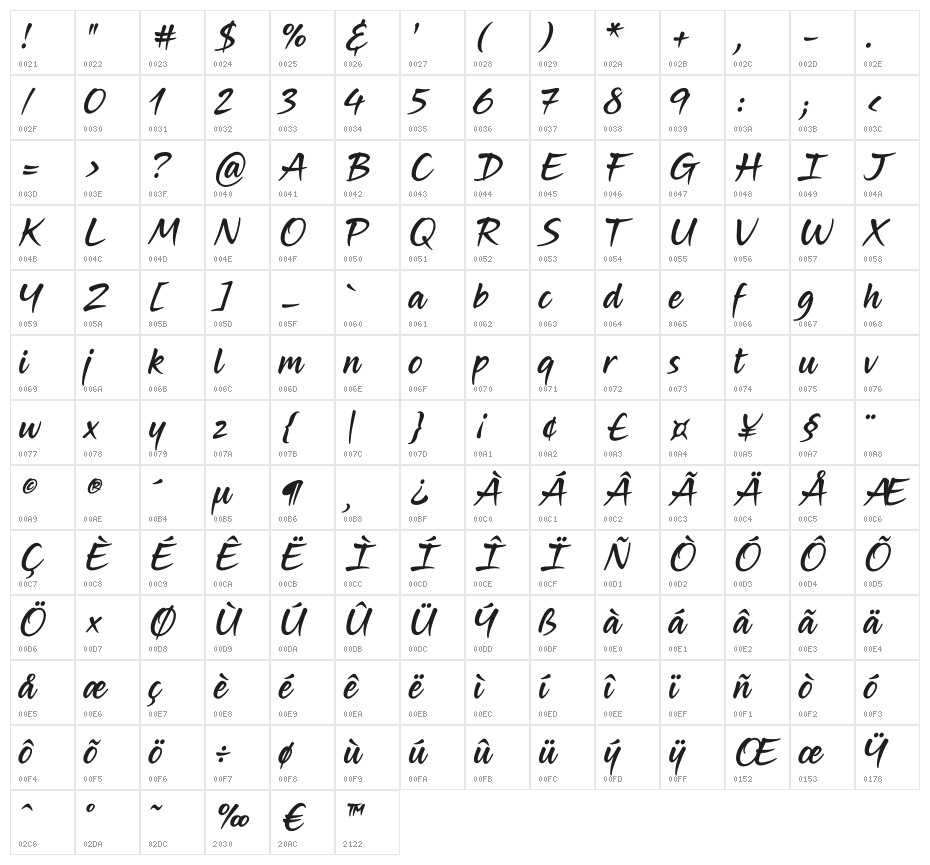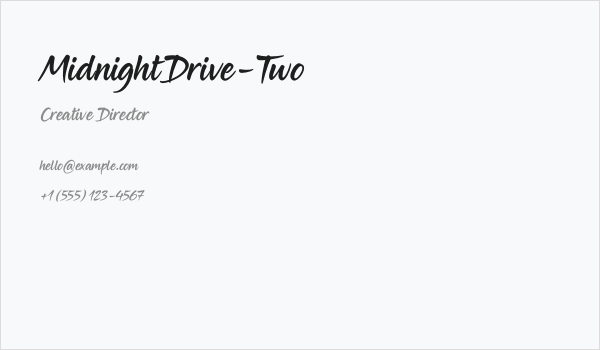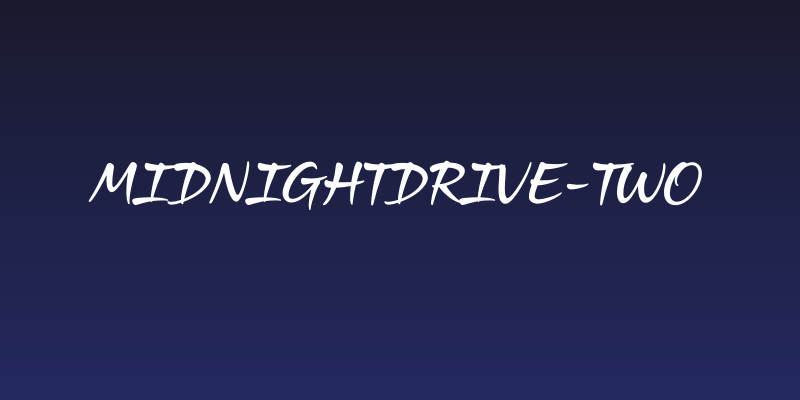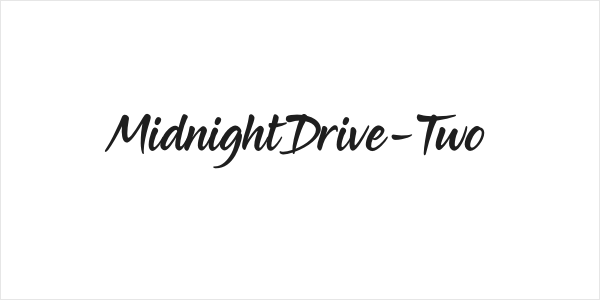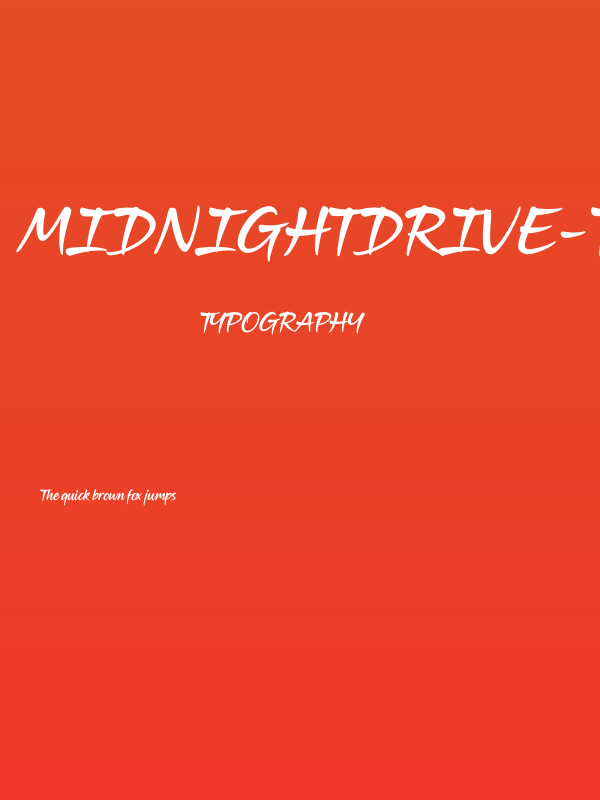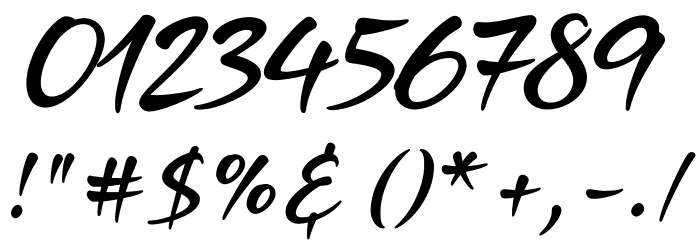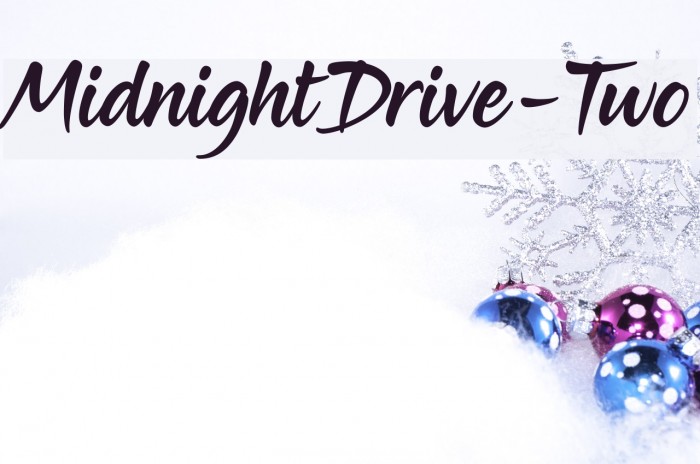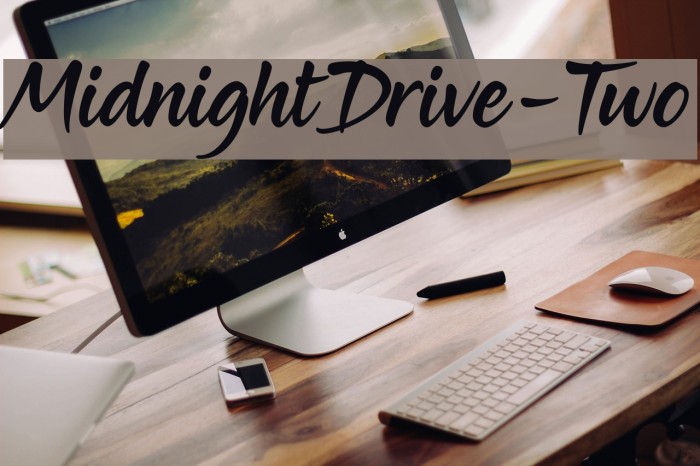
MidnightDrive-Two Font
MidnightDrive-Two Description
This font exudes a dynamic and energetic style, characterized by its fluid, cursive script that mimics the natural flow of handwriting. The letters are slightly slanted, adding a sense of motion and liveliness. The strokes are bold and confident, with a consistent thickness that gives the font a robust appearance. The uppercase letters maintain a uniform height, while the lowercase letters feature distinctive loops and curves, enhancing its handwritten charm. The numerals are clear and legible, matching the overall style of the alphabet. Special characters are well-integrated, maintaining the font's cohesive look. This font is perfect for projects that require a personal touch or a sense of elegance and flair.